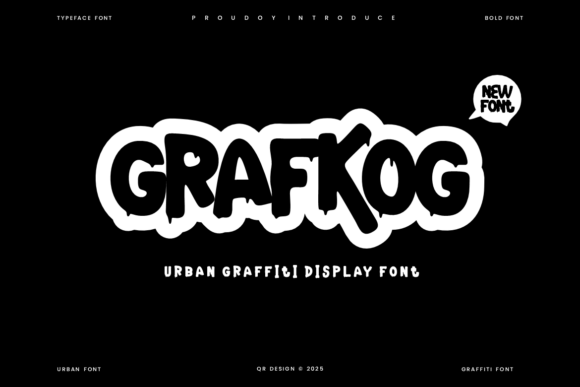
Discover the Magic of Grafkog Font
Have you ever been brainstorming a creative project and suddenly, a spark of inspiration hits you? It’s that moment when everything falls into place, and your ideas start flowing like water. For designers, this moment is priceless, and the right tools can make all the difference. That’s where the Grafkog Font comes in – a unique and interesting decorative font that’s about to become your new best friend.
Designed to add a touch of quirkiness to your designs, the Grafkog Font is incredibly adept on a wide variety of contexts. Whether you’re working on a logo, a poster, or a social media graphic, this font is sure to bring a smile to your face and your audience’s. Its versatility and playfulness make it a valuable addition to any designer’s toolkit, and we’re excited to share its magic with you.
Grafkog Font Key Features
- Font Family: Grafkog is a sans-serif font family, designed to be highly legible and versatile.
- Unique Characteristics: Grafkog features a unique blend of geometric and organic elements, giving it a distinctive and modern look.
Grafkog Font Review
Overall, I’m quite impressed with Grafkog Font. It’s a unique and stylish font that can add a touch of elegance to any design project. ✨ Here are some of its strengths:
- Uniqueness: Grafkog Font stands out from the crowd with its quirky, hand-drawn feel.
- Legibility: Despite its bold, artistic style, the font is surprisingly readable.
- Expressiveness: Grafkog Font is perfect for conveying creativity and playfulness in your designs.
- ⚠️ Limited font sizes: Grafkog Font can become difficult to read at smaller sizes, which may limit its use in certain applications.
- ⚠️ Limited language support: The font may not be compatible with all languages or character sets, which could be a problem for multilingual designs.
Overall, I’d say Grafkog Font is a great choice for designers looking to add a touch of whimsy to their projects. While it may have some limitations, its unique style and expressive qualities make it a valuable addition to any font collection.
Tips for Getting the Most Out of Grafkog Font
Experiment with different font sizes, colors, and styles to achieve a unique look.
Combine Grafkog with other fonts for a visually appealing contrast.
Use Grafkog for headings and titles to add a touch of sophistication.
Grafkog font is ideal for:
Creatives and designers looking for a modern, unique font.
Businesses seeking a professional, high-end look.
Projects requiring a touch of elegance and sophistication.